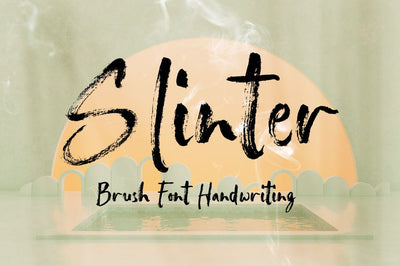
Slinter
Slinter is a brush, retro vintage with lots of ligatures and alternatives that will make your presentation or logo stand out! This font will make your project look retro, chic and neat. You can use this font for your posters, events or social media posts. Get your nostalgic feeling with this font character!